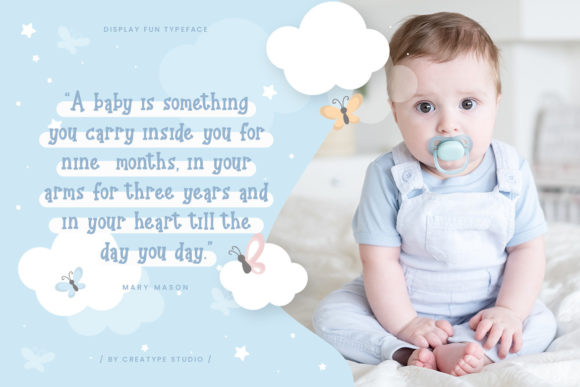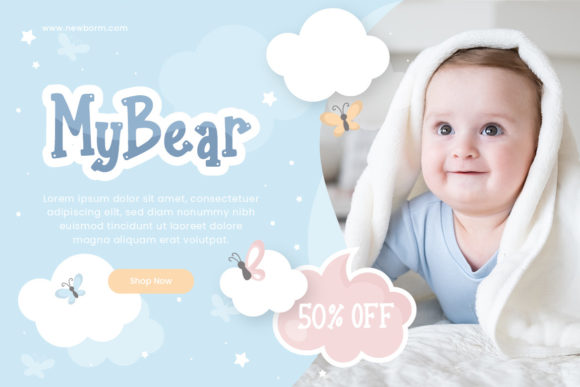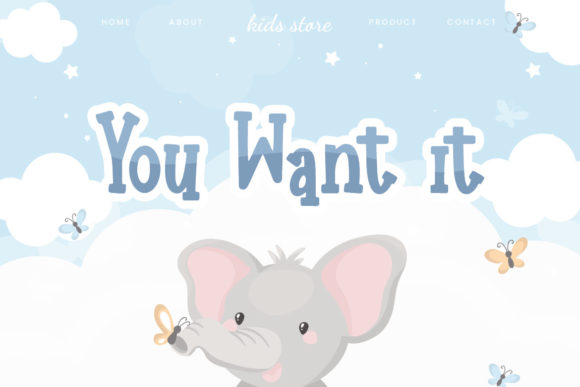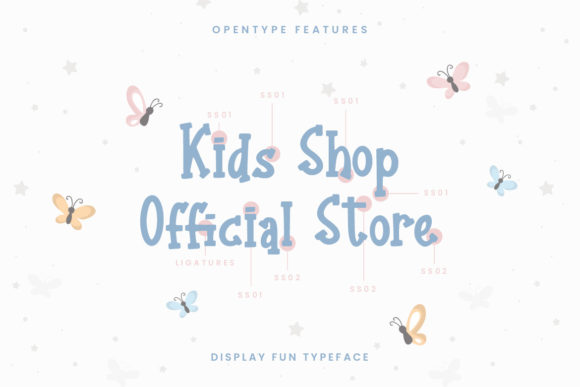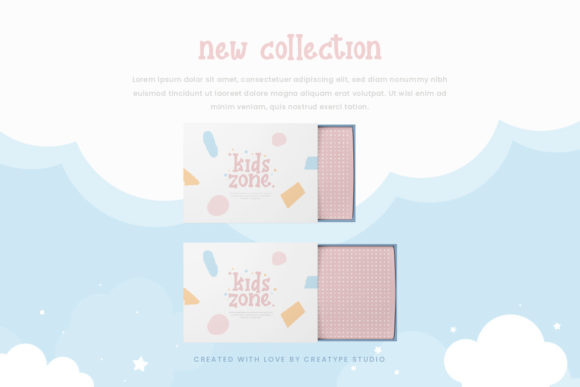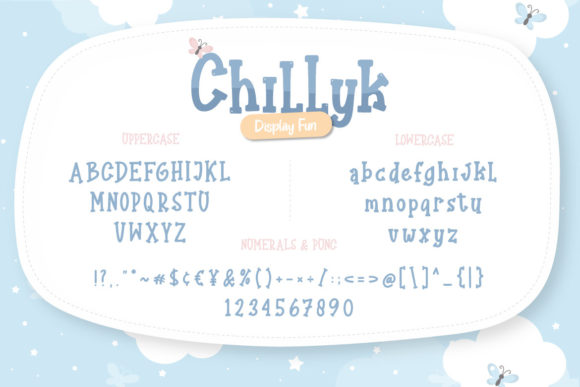
Introduction to Chillyk Font
Chillyk is a cute, bubbly and friendly serif font.
This font is PUA encoded which means you can access all of the glyphs and swashes with ease Add it confidently to your favorite creations and let yourself be amazed by the outcome generated.
Key Features of Chillyk Font